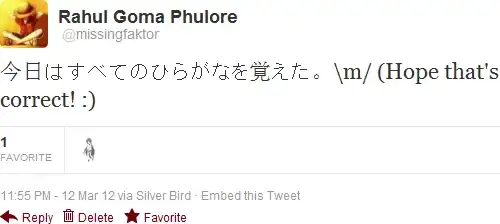
I am using Windows 7 and have set font smoothing to ClearType. However, Japanese characters display very roughly throughout the operating system. What can I do so they are rendered smoothly like other characters?
Here is a sample of what they currently look like:
The problem is that traditional Japanese fonts (MS Gothic, MS PGothic, MS Mincho…) also include bitmap fonts in small sizes in addition to outline ones (typically for characters 22pt and less). These bitmaps cannot be applied any type of smoothing, so it results in a crazily ugly aliasing, eye hurting appearance. There are several solutions for this:
• Just answer a question and then find out some related question so I answer them too. Is that prohibited? – phuclv Aug 09 '13 at 01:12
• No. Unfortunately there are spammers, and their behavior is basically identical, advertising their own software on a bunch of similar questions. Moderators then need to determine whether it's legitimate advice, or spam. We sometimes make mistakes though and consider enthusiasts to be spammers. The previous comment was more of a suggestion to prevent your posts from mistakenly getting deleted. – Daniel Beck Aug 09 '13 at 06:58
• It would sure be nice if Microsoft would just provide an option to disable the use of the bitmaps in those fonts. – Wyck Apr 06 '23 at 04:18
• @Wyck they did that in Windows 8 RC. I don't know if they removed the bitmaps or ignored them but texts are crisp, beautiful and clear. But somehow in the official release the bitmaps are used again and the text came back ugly as a pain in the \*ss – phuclv Apr 07 '23 at 18:18
2
This depends on the font. Different fonts have different characteristics, including different behavior in font smoothing. You might be using a font in the Mincho group, as they are commonly used as default fonts and they may have problems like this; Gothic fonts may work better on screen.
• absolutely, I've experienced that Meiryo actually fixes everything. I don't know why windows (even 10) in 2017 still uses 1990's tech by default and is happy with it. – v.oddou Jun 06 '17 at 07:23
• @v.oddou MS did fixed that in Windows 8 RC, all Japanese texts are smooth. But probably it caused some guys to irritate so they reported it and MS reverted the change in the official release so Japanese texts became broken again – phuclv May 23 '23 at 03:59